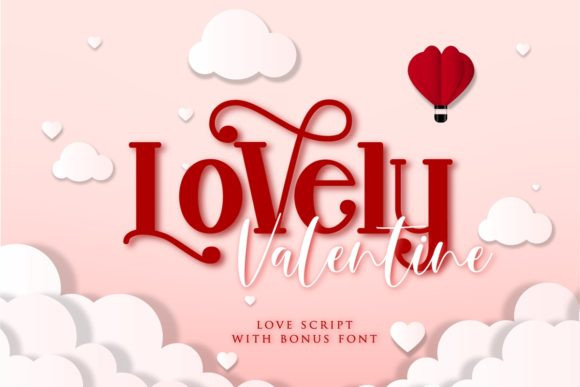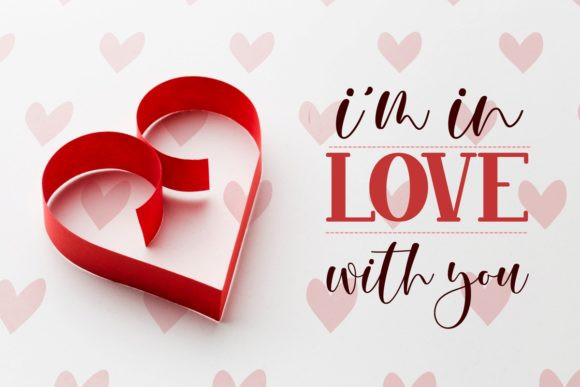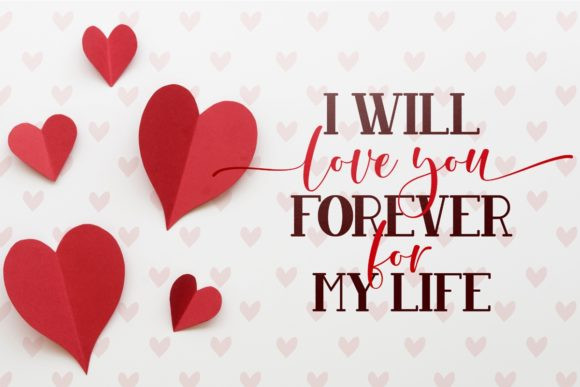
Lovely Valentine Font
Lovely Valentine is a fashionable duo font (serif and script). Incredibly adaptable, this font fits a wide pool of designs, elevating them to the highest levels. Add this font to your favorite creative ideas and notice how it makes them come alive!